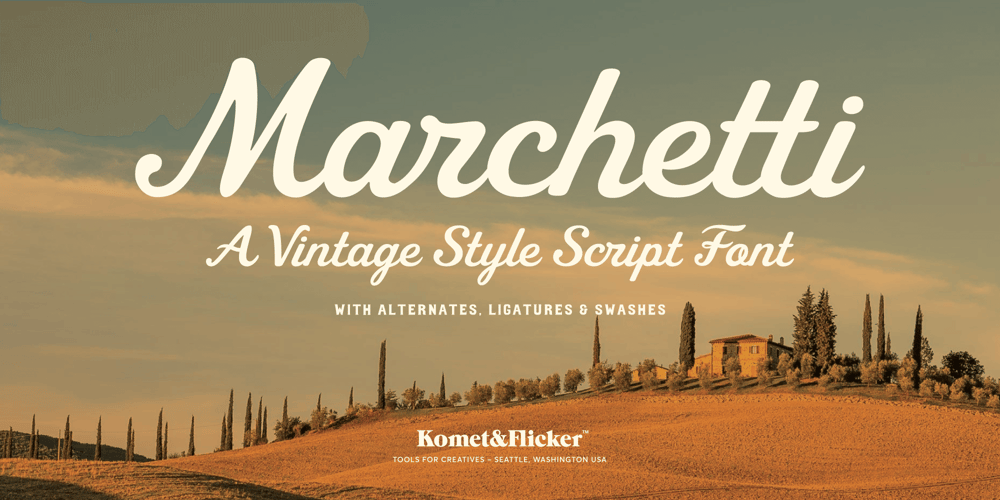
Marchetti
Marchetti font
Marchetti Font Family was designed by David Phillips and published by Komet & Flicker. Marchetti contains 1 styles and family package options. Introducing Marchetti, a vintage-style script font that effortlessly captures the charm of European cafes and the relaxed vibe of tropical beaches.Whether you’re crafting classic sports-themed graphics or designing for your next outdoor adventure, Marchetti adds a touch of sophistication and warmth. With its unique character set, this font includes 19 custom ligatures, 3 custom swash letters, and 9 additional swashes that beautifully complement all lowercase letters, giving your designs a polished finish.For those looking to enhance their projects even further, Marchetti pairs seamlessly with our Beach Villa font, creating a harmonious blend of styles that stands out in any setting. Check out the stunning gallery images showcasing its versatility and charm!Elevate your design game with Marchetti, where vintage flair meets modern creativity. Perfect for any project that calls for a touch of elegance and adventure.THIS FONT INCLUDES• Full A-Z uppercase and small caps basic latin characters• Select European specific characters• Numbers, punctuation, and select symbols• Set of 19 custom ligatures, 3 custom swash letters, and 9 additional swashesIn Illustrator, the extra custom glyphs can easily be accessed in the “Type → Glyphs” panel. In Photoshop they can be accessed through “Type → Panels → Glyphs Panel”.